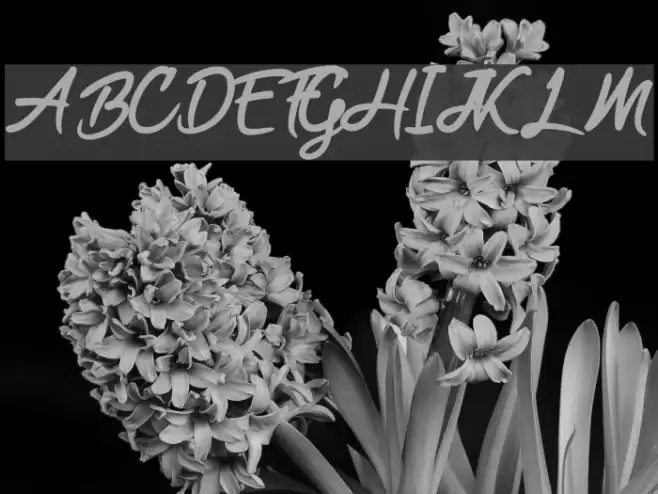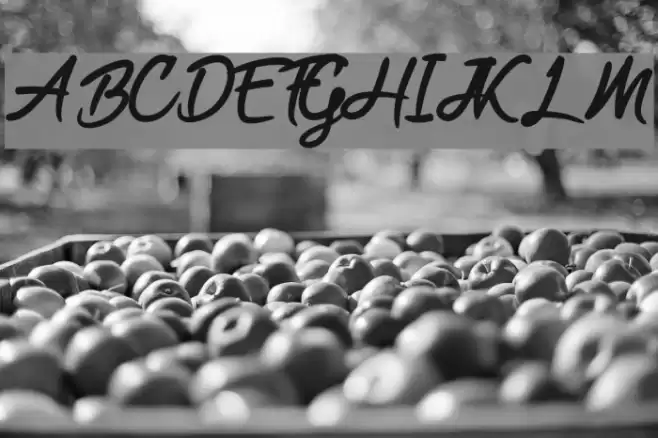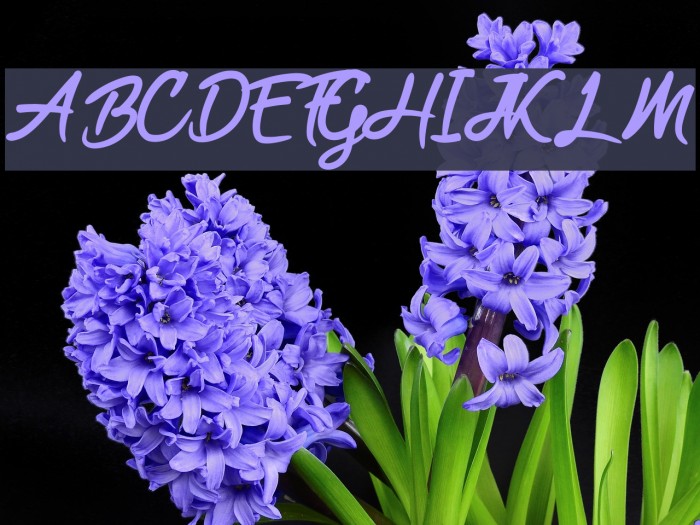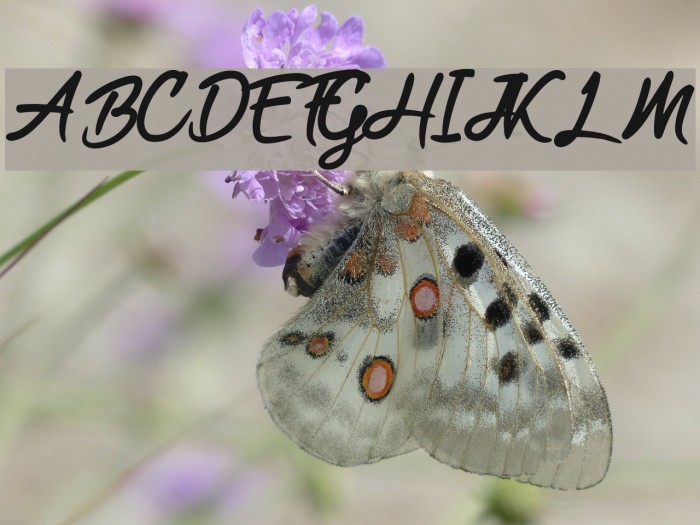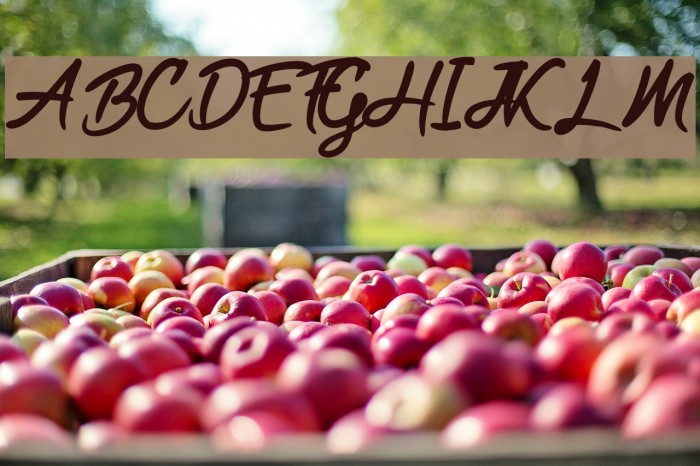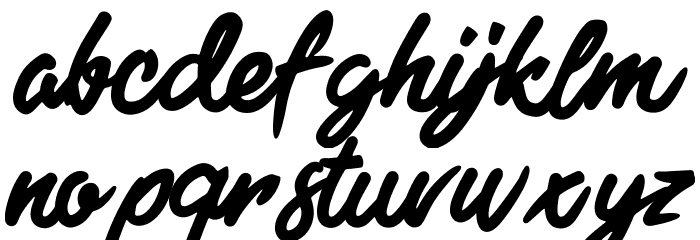
Black Freeday Font
Black Freeday Description
This font features a bold and expressive script style, characterized by its fluid and dynamic strokes. The letters are interconnected, creating a sense of movement and rhythm. The uppercase letters are slightly larger and more pronounced, while the lowercase letters maintain a consistent flow. The overall appearance is both elegant and casual, making it suitable for a variety of creative projects. The font's thick strokes and smooth curves give it a distinctive and eye-catching look, perfect for making a statement.
A bold, expressive script font with fluid, interconnected strokes from Uncategorized fonts.
- Proposed Projects: Ideal for branding, invitations, posters, and any design that requires a personal touch.
- Character Spacing: Tight
- Use Case: Logos, Headlines, Invitations